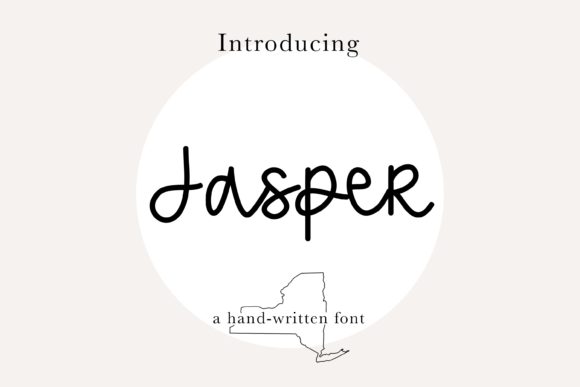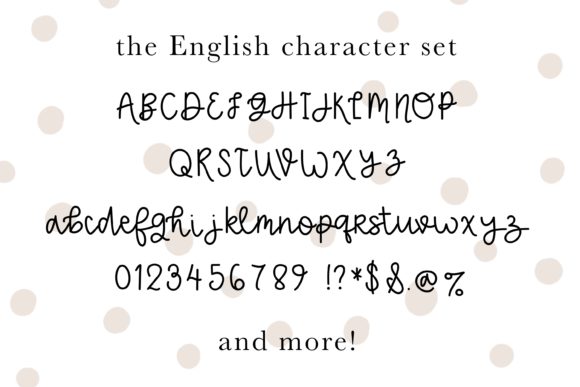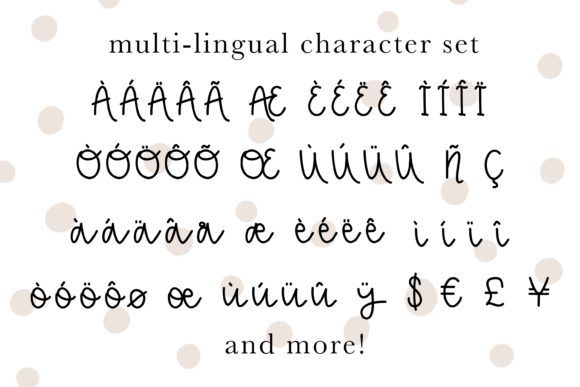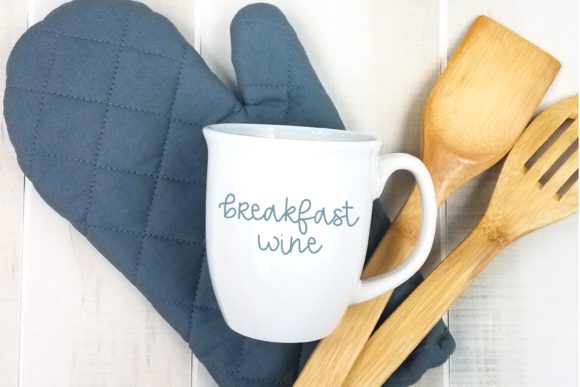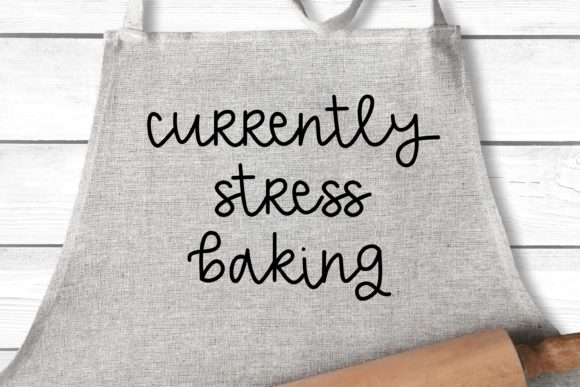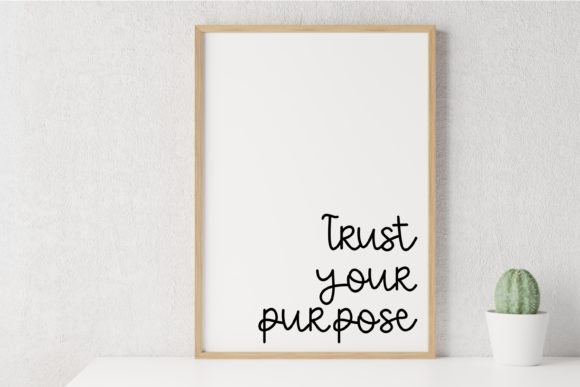
Jasper Font
About Jasper Font
Jasper is an elegant and dainty handwritten font that features sweet and delicate swashes. This original look will appeal to a wide range of crafty ideas, from letterheads and titles, to stationery.